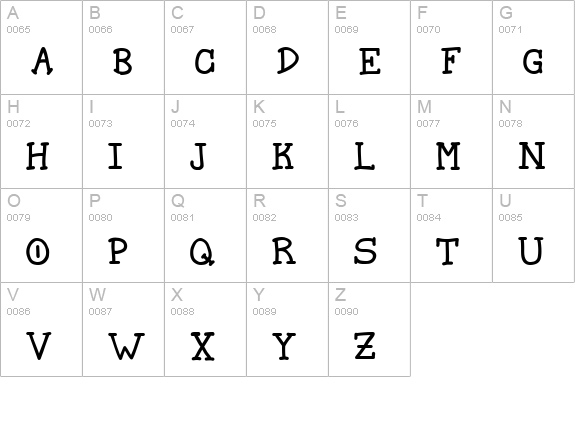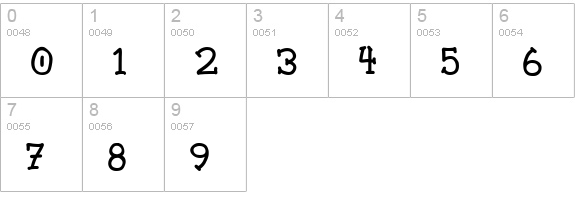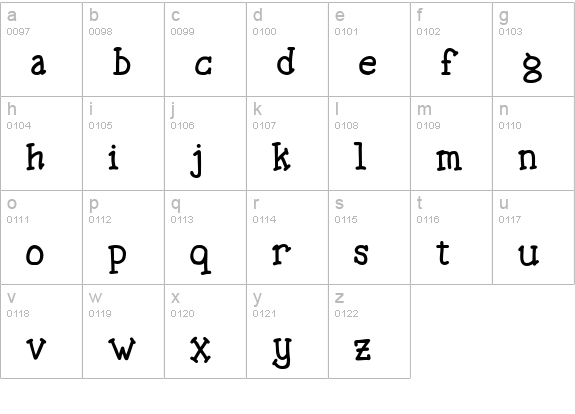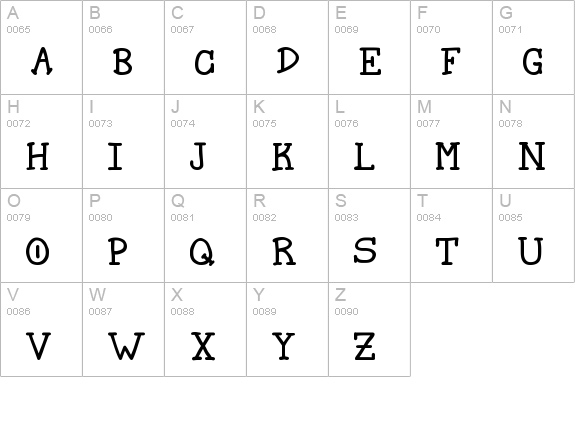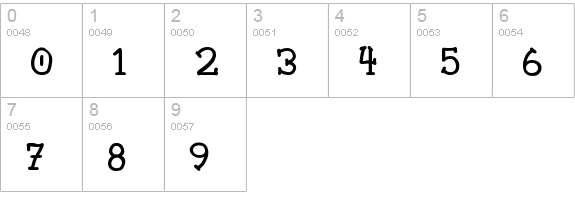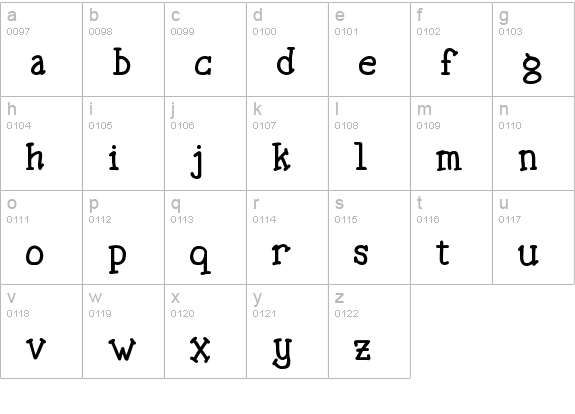
Spellstone Font Details
Introducing Spellstone, a captivating and enchanting font that will transport your projects to a world of magic and wonder. With its elegant and mystical letterforms, this font is perfect for adding a touch of whimsy and charm to any design. Spellstone is not only visually stunning, but it also offers versatility and legibility, making it suitable for a wide range of applications. Whether you're designing invitations for a fairy-tale wedding, creating spellbinding logos, or crafting captivating headlines, Spellstone will bring your words to life with its unique and captivating style. But what sets Spellstone apart from other fonts is that it is not only a feast for the eyes, but it is also free! That's right, you can freely download this extraordinary font at FontsMarket.com. Now, you can add a touch of magic to your designs without breaking the bank. With Spellstone, creativity knows no bounds. Let your imagination run wild as you explore the endless possibilities this font has to offer. Whether you're a professional designer or a casual enthusiast, Spellstone will empower you to create stunning visuals that will leave a lasting impression. So why wait? Unlock the power of Spellstone today and let your designs cast a spell on everyone who lays eyes on them. Download this exquisite font for free at FontsMarket.com and embark on a journey into a world of enchantment and inspiration.